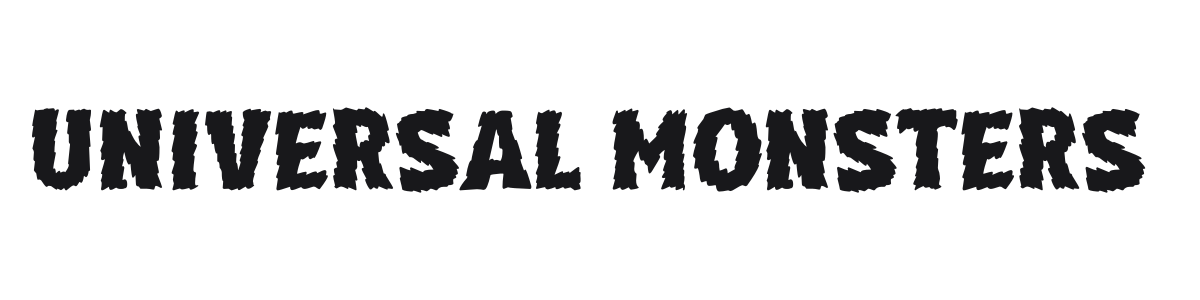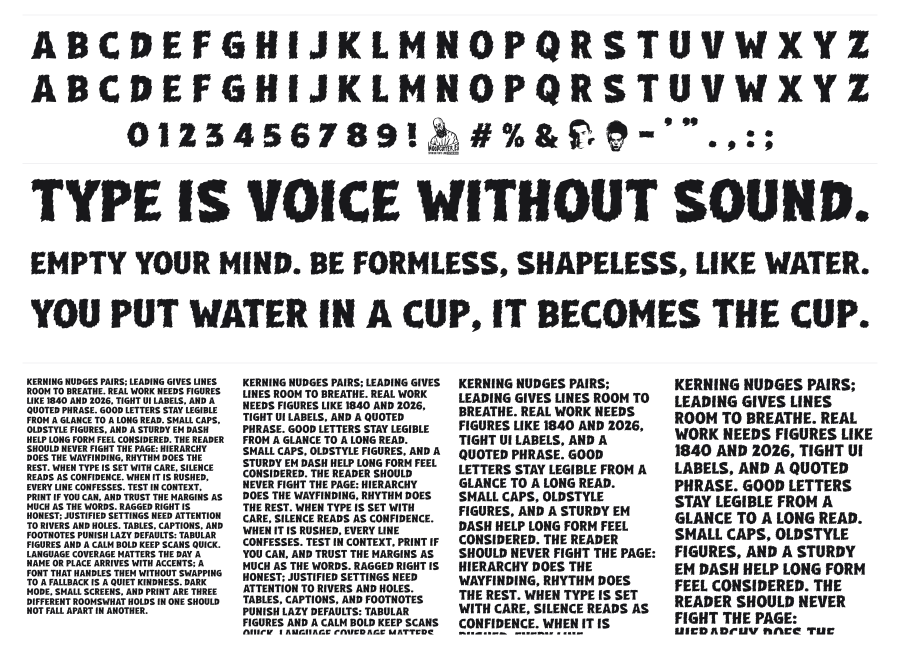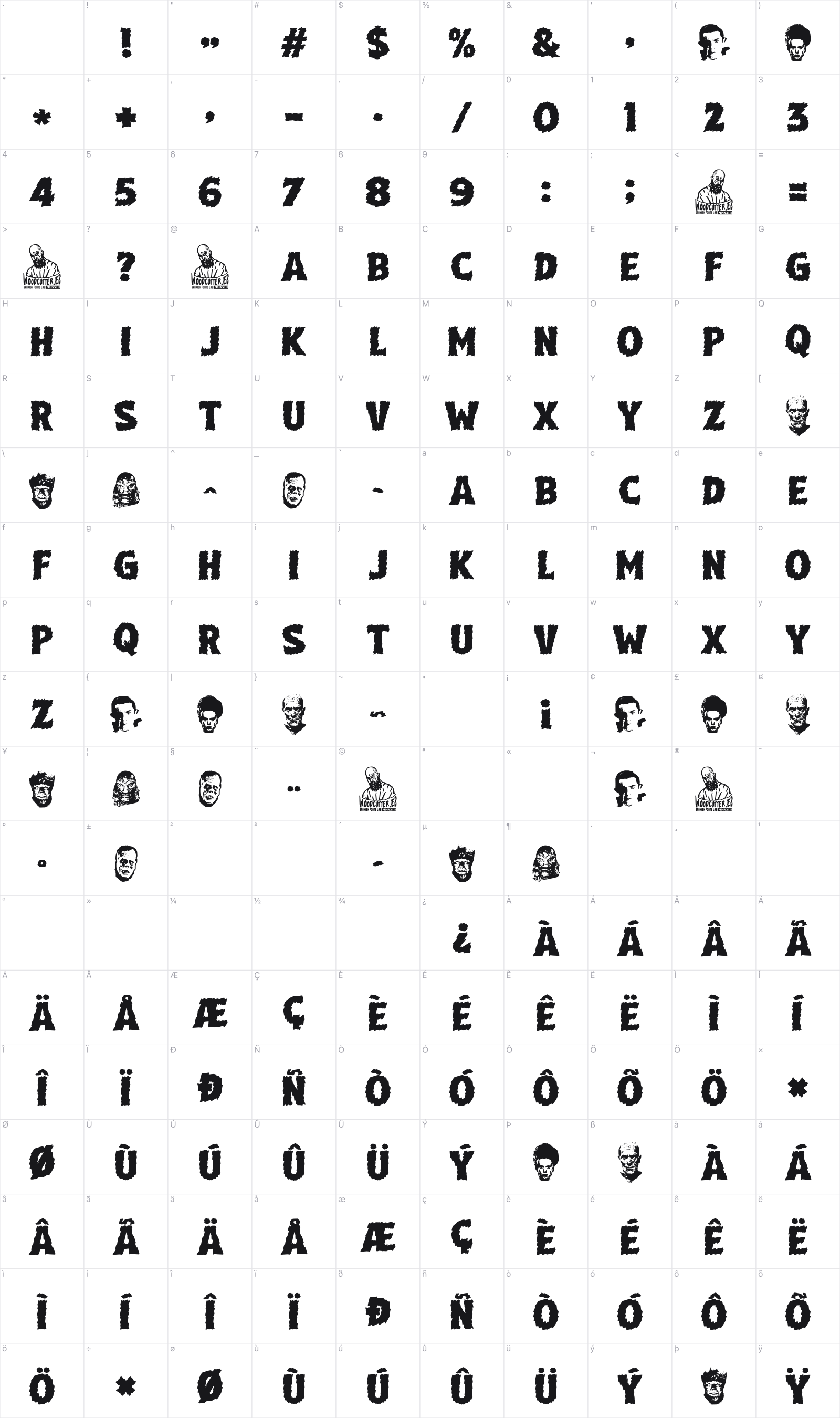
Universal Monsters
Universal Monsters is a bold distressed serif soaked in vintage horror atmosphere. Every character looks like it was pulled from the opening titles of a 1930s monster film, with rough torn edges and chunky stems that feel genuinely menacing at large sizes. Created by Woodcutter, it brings that classic creature-feature energy to posters, titles, and horror branding.